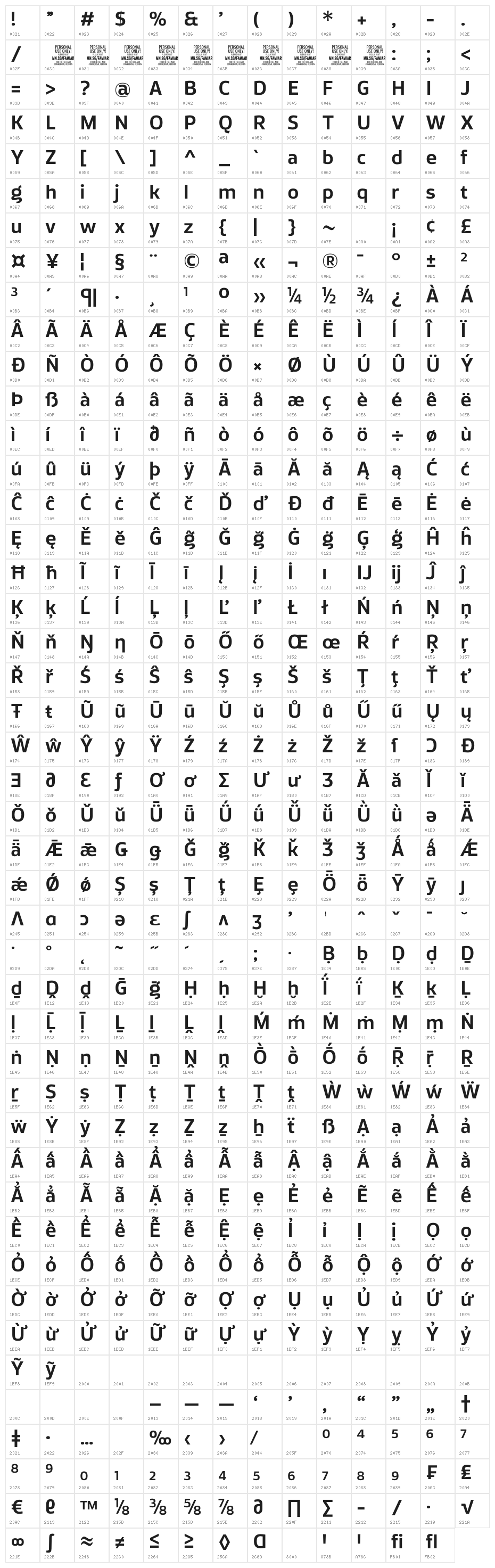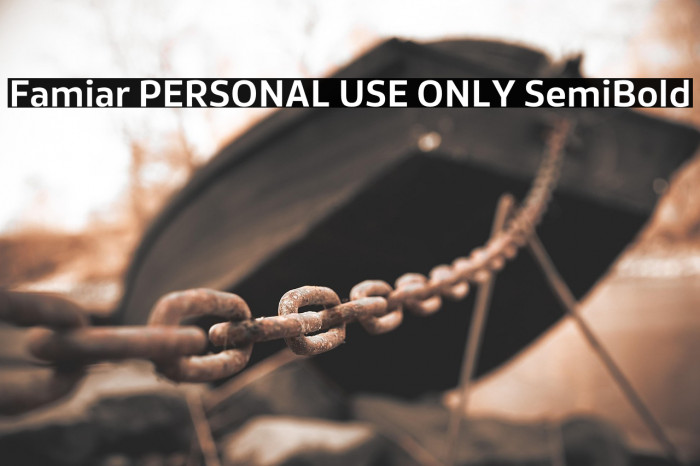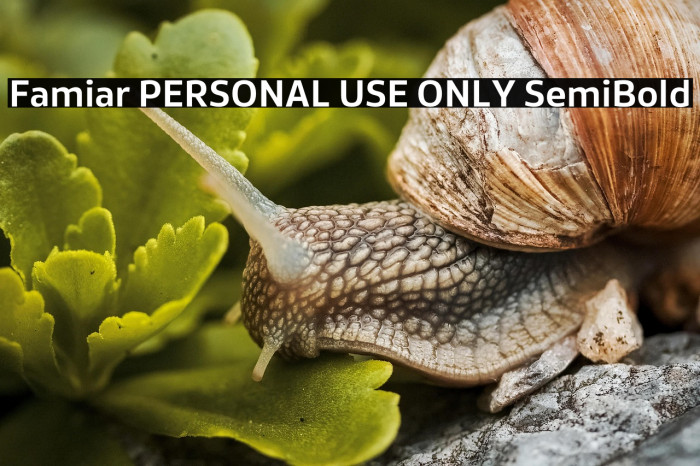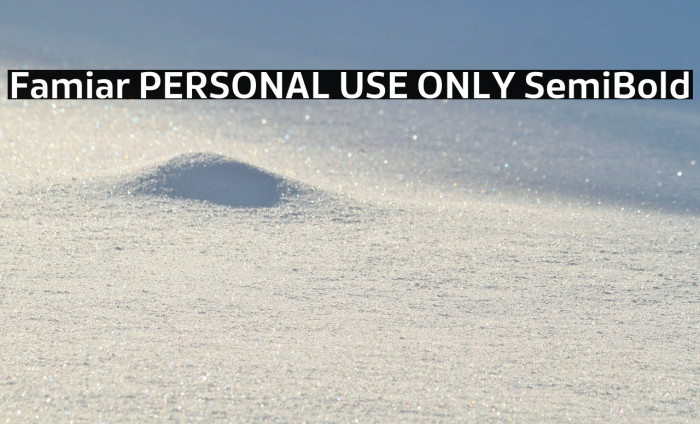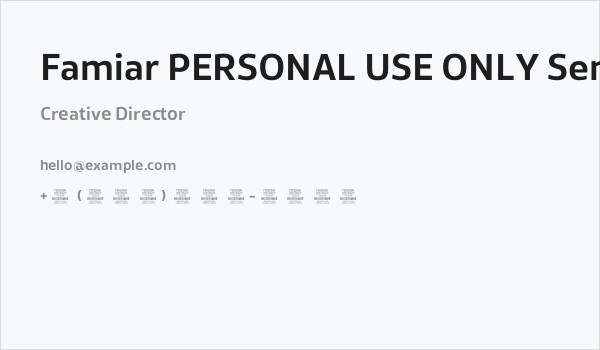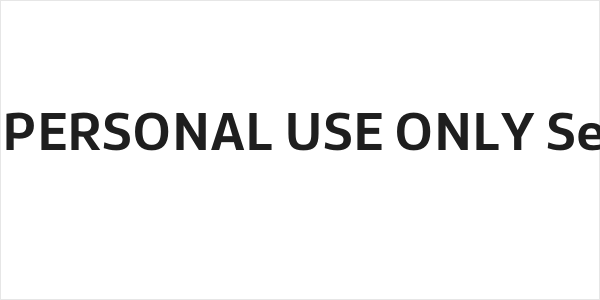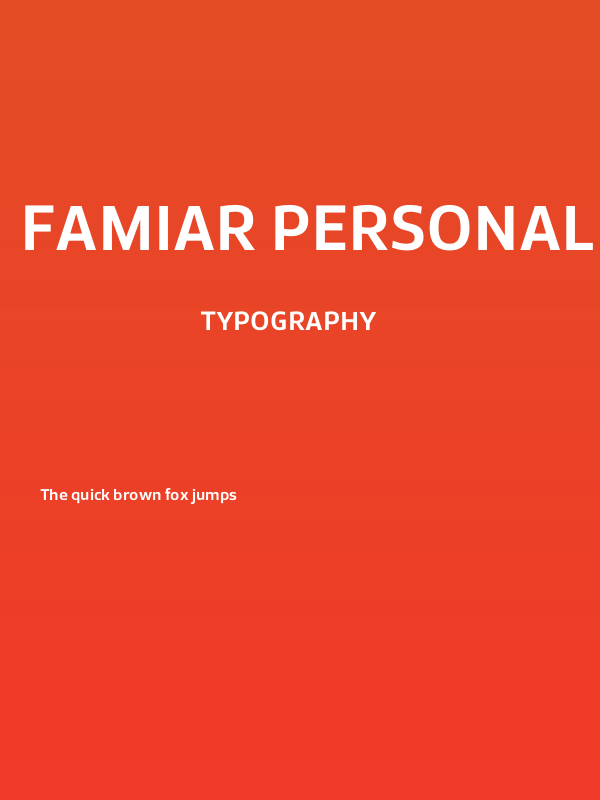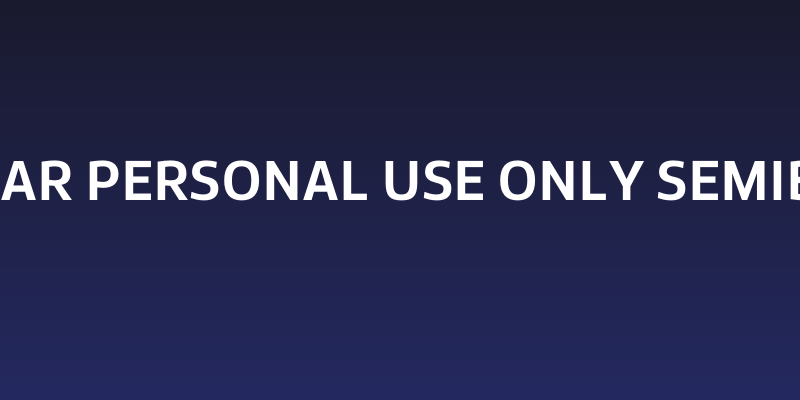
Famiar PERSONAL USE ONLY SemiBold Font
Famiar PERSONAL USE ONLY SemiBold Description
This font features a bold and modern sans-serif style, characterized by clean lines and a strong presence. The uppercase letters are uniform in height, providing a balanced and structured appearance. The lowercase letters maintain a consistent x-height, contributing to readability and a cohesive look. The numerals are clear and distinct, matching the overall boldness of the typeface. Special characters are well-defined, adding versatility for various uses. The font's design is suitable for both digital and print media, offering a contemporary aesthetic that is both professional and approachable.